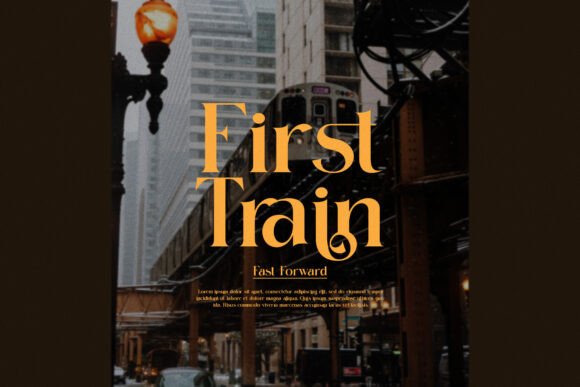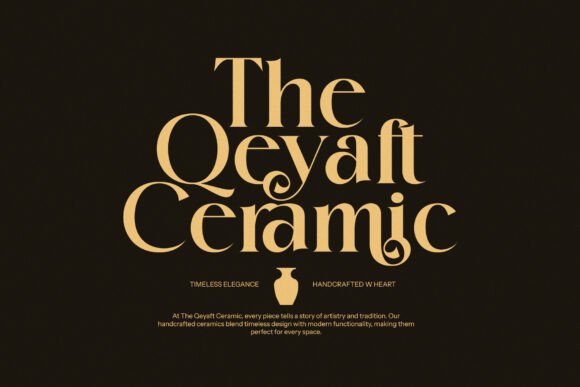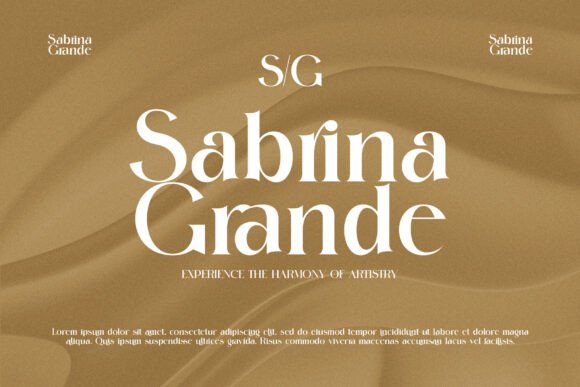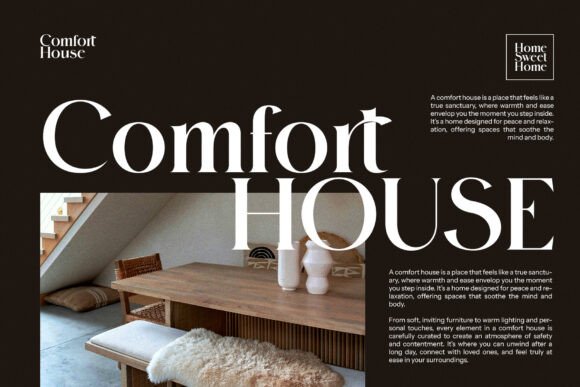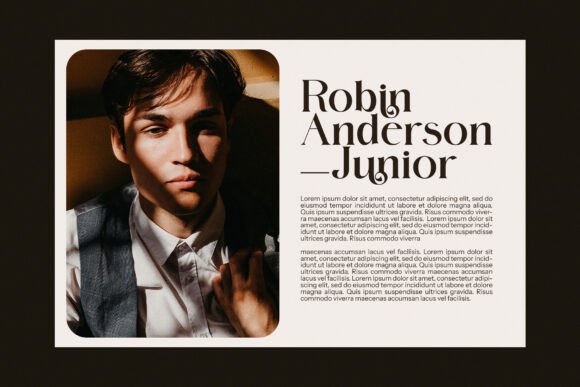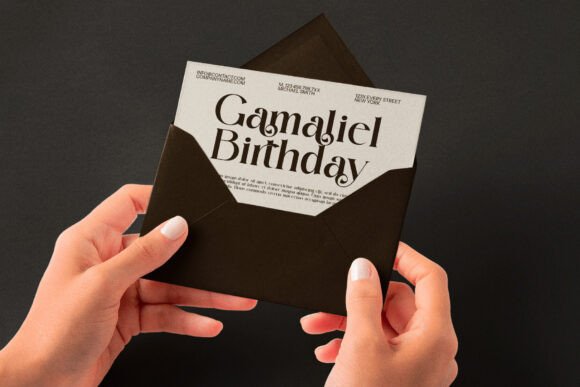
I still remember the frustration of working on a high-end fashion brand’s logo design project. The client wanted a font that exuded luxury, sophistication, and elegance. I scoured the internet, tried countless fonts, but nothing seemed to fit the bill. That was until I stumbled upon Cartin Elegant Serif Font. It was like a breath of fresh air – the perfect blend of modernity and tradition. In this article, I’ll share my experience with Cartin Elegant Serif, its features, and how to make the most of this beautiful font.
What Makes Cartin Elegant Serif Special?
Cartin Elegant Serif Font is a refined and modern serif typeface designed to bring sophistication and uniqueness to your designs. Its thoughtful design features, such as distinctive ligatures and alternates, make it stand out from other fonts. Here are some of the things I love about Cartin Elegant Serif:
- ✨ Elegant letterforms: Cartin Elegant Serif boasts beautiful, refined letterforms that are perfect for high-end branding and luxury designs.
- ✅ Distinctive ligatures and alternates: The font’s ligatures and alternates add a touch of sophistication and elegance to your text.
- ✅ Versatility: Cartin Elegant Serif is suitable for a wide range of applications, including logos, branding materials, editorial layouts, websites, magazines, product packaging, and advertisements.
- ✨ Timeless design: The font’s carefully crafted serifs provide a balanced mix of tradition and modernity, making it a timeless choice for businesses.
While Cartin Elegant Serif is an exceptional font, it’s not without its quirks. Here are some things to consider:
- ✅ What I love:
- Beautiful, elegant letterforms
- Distinctive ligatures and alternates
- Versatile and suitable for various applications
- ⚠️ Small quirks or limitations:
- May not be suitable for body text due to its elegant, refined nature
- Limited availability of certain characters or glyphs
- May require some experimentation to get the desired look
Cartin Elegant Serif was designed with inspiration from classic serif fonts, combined with modern elements to create a unique and elegant look. The font’s creator aimed to craft a typeface that would bring sophistication and luxury to designs, while maintaining a sense of tradition and timelessness.
| Font Name | Cartin Font |
| Author | Perfectype |
| What is Cartin Elegant Serif? | Cartin Elegant Serif is a refined and modern serif typeface designed for luxury designs, high-end branding, and editorial layouts. |
| What makes Cartin Elegant Serif special? | Cartin Elegant Serif features distinctive ligatures and alternates, elegant letterforms, and a timeless design. |
| Is Cartin Elegant Serif suitable for body text? | While Cartin Elegant Serif is elegant and refined, it may not be suitable for body text due to its elegant, refined nature. |